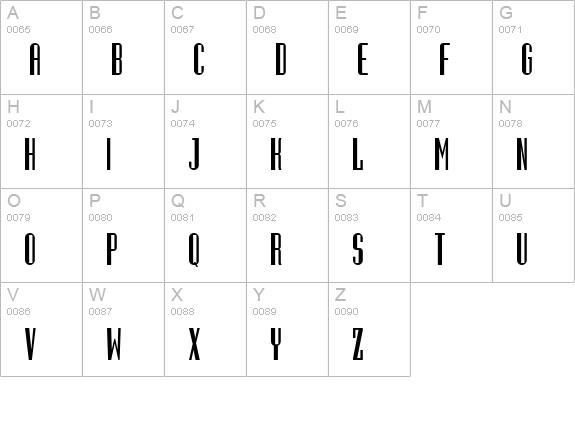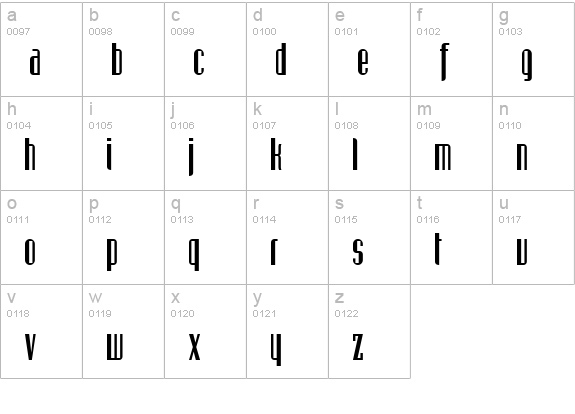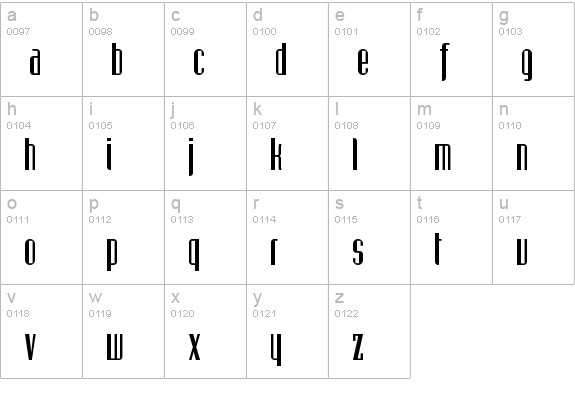
Gustavus Font Details
Gustavus font is a stunning typeface that exudes elegance and sophistication. Its timeless design features clean lines and a modern aesthetic that make it perfect for a wide range of creative projects. With its sleek and stylish appearance, Gustavus font is sure to make a bold statement wherever it is used. The best part? Gustavus font is completely free to download! You can get your hands on this beautiful typeface at FontsMarket.com, where you can easily access and install it for use in your designs. Whether you're working on a branding project, creating social media graphics, or designing a website, Gustavus font is the ideal choice to add a touch of class and sophistication to your work. Don't miss out on the opportunity to enhance your designs with the elegance of Gustavus font. Download it for free today and elevate your creative projects to the next level!